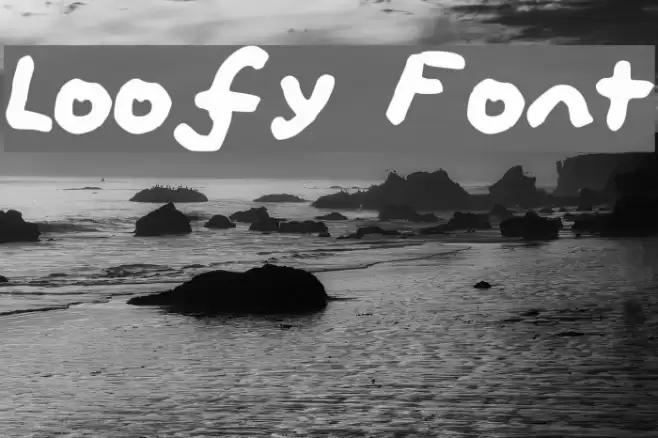
Loofy Font
Loofy Description
This playful and bold font features a handwritten style with a casual, relaxed appearance. The characters are rounded and slightly irregular, giving it a friendly and approachable feel. The strokes are thick and consistent, providing a strong visual presence. This font is ideal for projects that require a personal touch or a sense of whimsy. The uppercase and lowercase letters maintain a uniform style, while the numerals and special characters complement the overall aesthetic. Its unique charm makes it suitable for creative and informal designs.
A bold, handwritten font with a playful and casual style from Uncategorized fonts.
- Overall Style: Playful